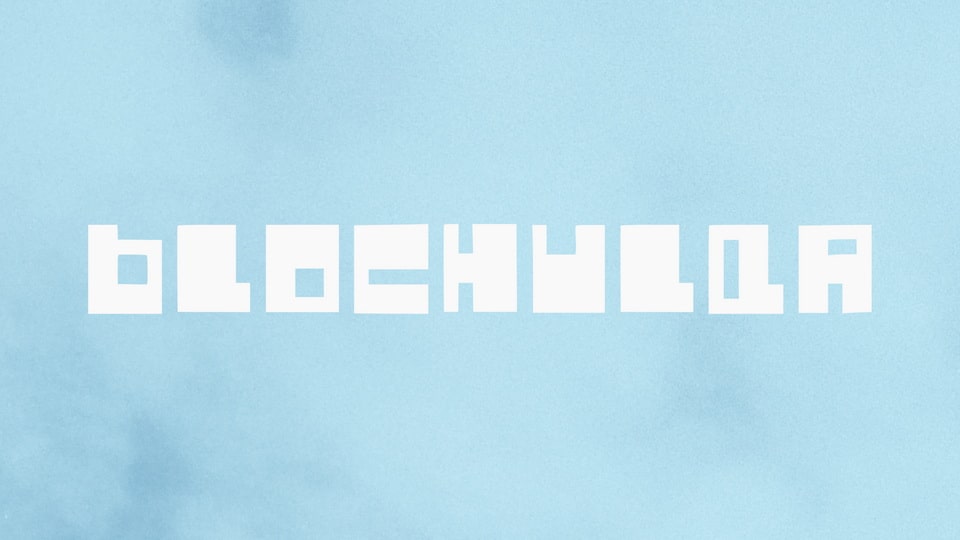
Blockular Font › Fontesk – Download Grátis
Download Blockular font, a bold and funky display typeface that effortlessly combines retro charm with a friendly personality.